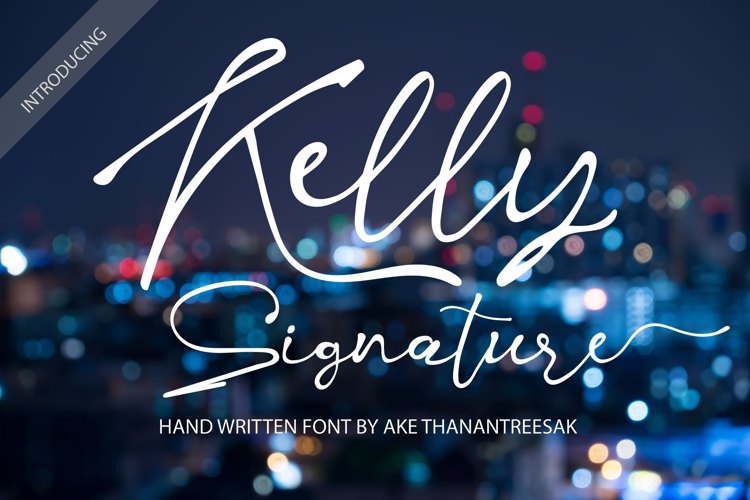
Kelly Signature Font
Kelly Signature is a unique handwritten font. A little bit quirky, this font looks incredibly adept in a wide variety of contexts! This font is PUA encoded, which means you can access all of the glyphs and swashes with ease!